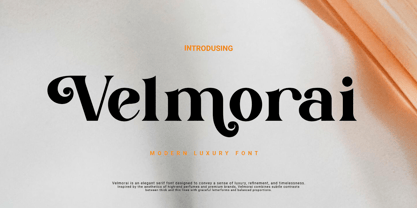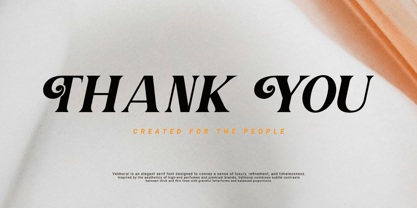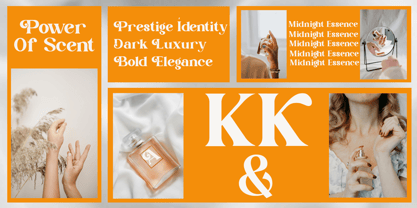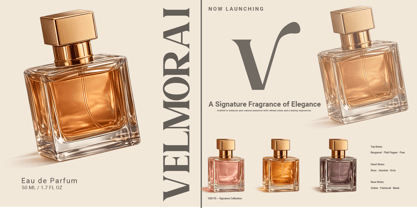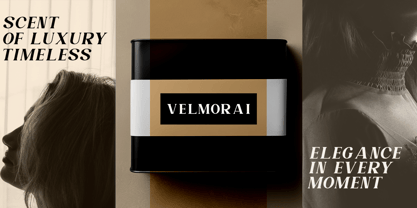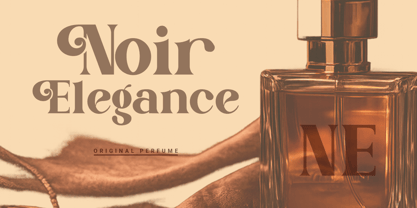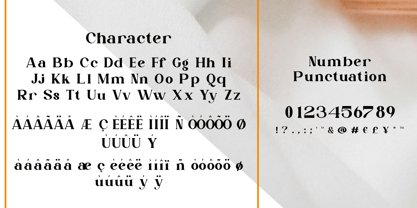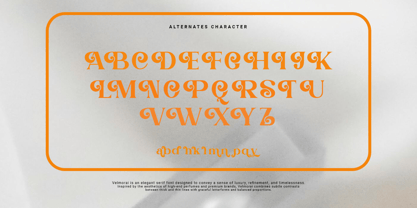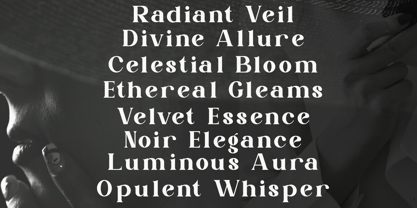
Velmorai
by Agung Sudirman
The Velmorai Font Family was designed by Agung Sudirman and published by Agung Sudirman. Velmorai contains 2 styles and family package options. More about this family
Introducing a versatile typeface crafted to bring clarity, character, and modern appeal to your designs. Built with a clean foundation and refined detailing, this font strikes a perfect balance between professionalism and personality—making it a reliable choice for creatives across industries. Designed with flexibility in mind, this typeface works beautifully in both display and text settings. Its well-proportioned letterforms and consistent spacing ensure excellent readability, whether used in branding, editorial layouts, websites, packaging, or social media content. From bold headlines to subtle body text, it maintains a cohesive and polished look. What sets this font apart is its subtle uniqueness. Gentle curves, precise angles, and balanced contrast give it a distinctive voice without overwhelming the message. It’s ideal for designers who want something modern and clean, yet not overly generic. The result is a typeface that feels fresh, approachable, and highly functional. The family includes multiple styles, allowing you to create clear visual hierarchy and dynamic compositions. With an extended character set, it supports multilingual use and offers flexibility for global design projects. Special attention has been given to punctuation, numerals, and stylistic consistency, ensuring professional-quality typography in every context. This typeface pairs effortlessly with minimalist sans-serifs for a sleek contemporary look, or with classic serifs for a more editorial and sophisticated feel. It adapts easily to different brand personalities—whether you’re aiming for bold and expressive or clean and understated. Created as a solution for designers seeking both style and usability, this font reflects a thoughtful design approach focused on versatility and clarity. It’s more than just a typeface—it’s a tool to help communicate ideas with confidence and style. Perfect for logos, branding systems, magazines, advertising, and digital interfaces, this typeface is ready to elevate your next creative project.